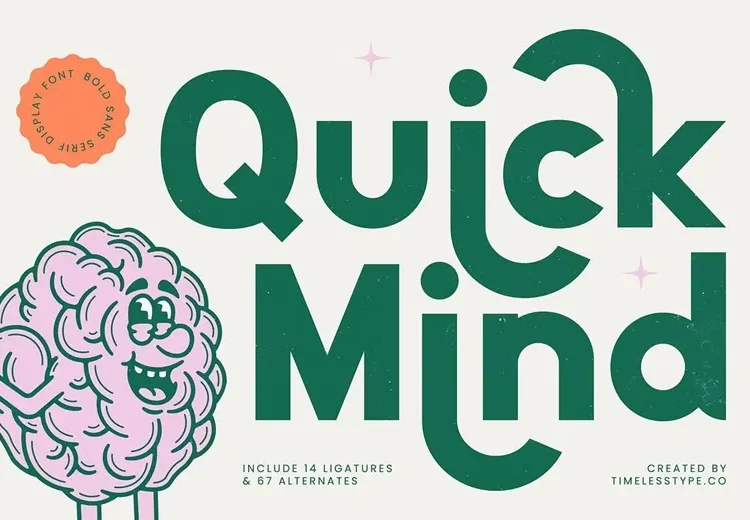
Quick Mind Font
Quick Mind is a modern bold sans-serif display font from Timelesstype.Co, designed to elevate your projects with a touch of sophistication and impact. Its clean lines and bold design make it perfect for a variety of creative applications.
This versatile font is ideal for logos, branding projects, homeware designs, product packaging, mugs, quotes, posters, shopping bags, t-shirts, book covers, name cards, invitation cards, greeting cards, labels, photography, special events, and more. Whatever your luxury or stylish project, Quick Mind ensures a striking and professional outcome.